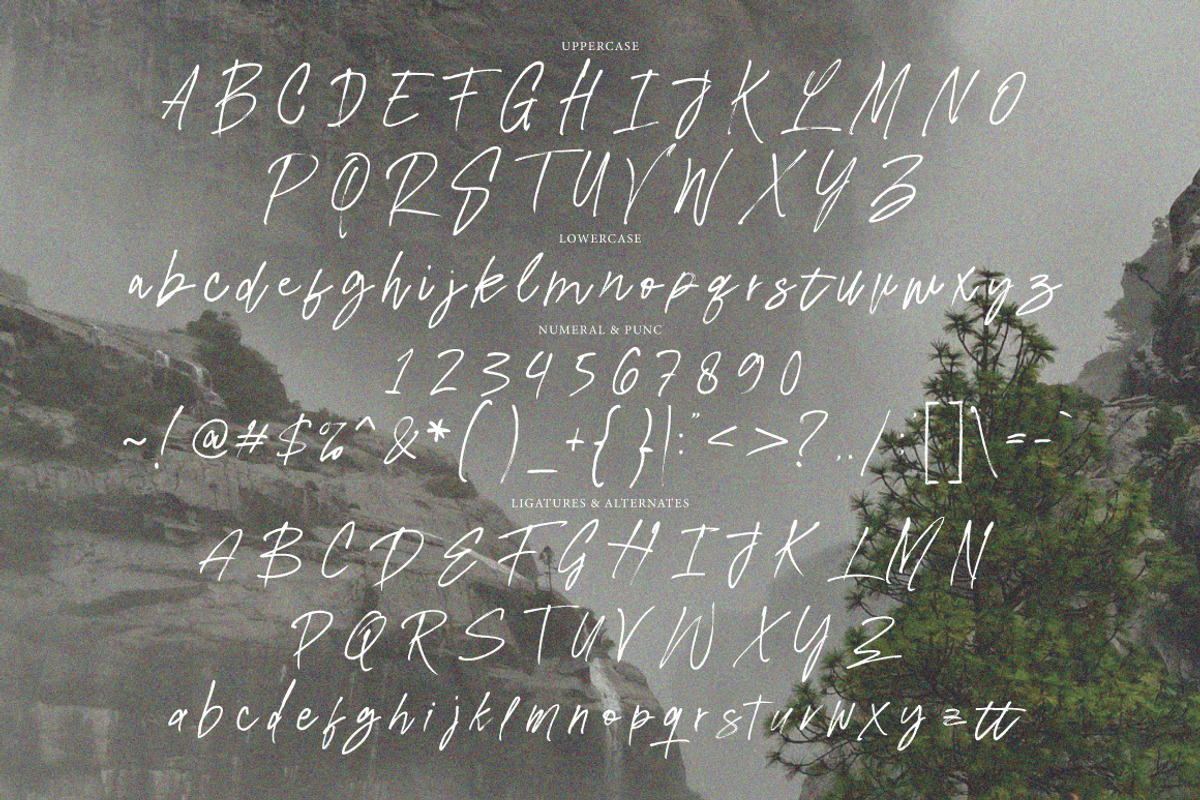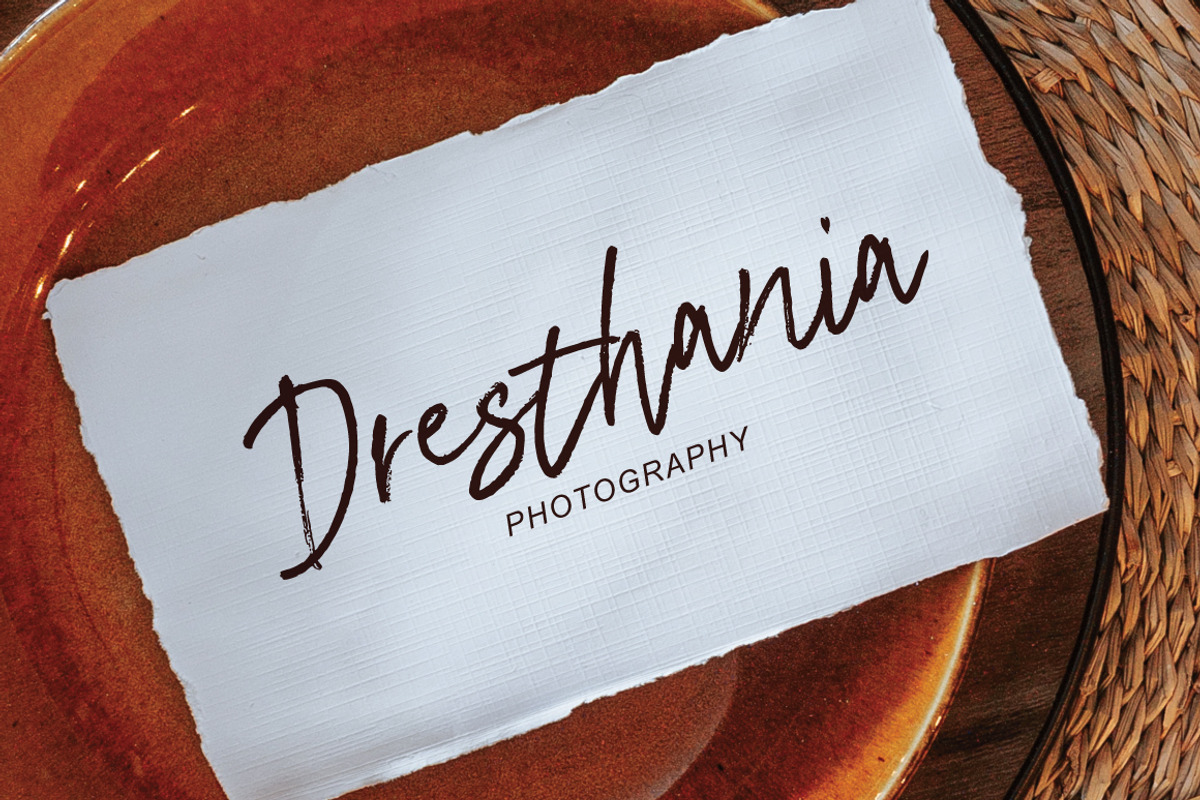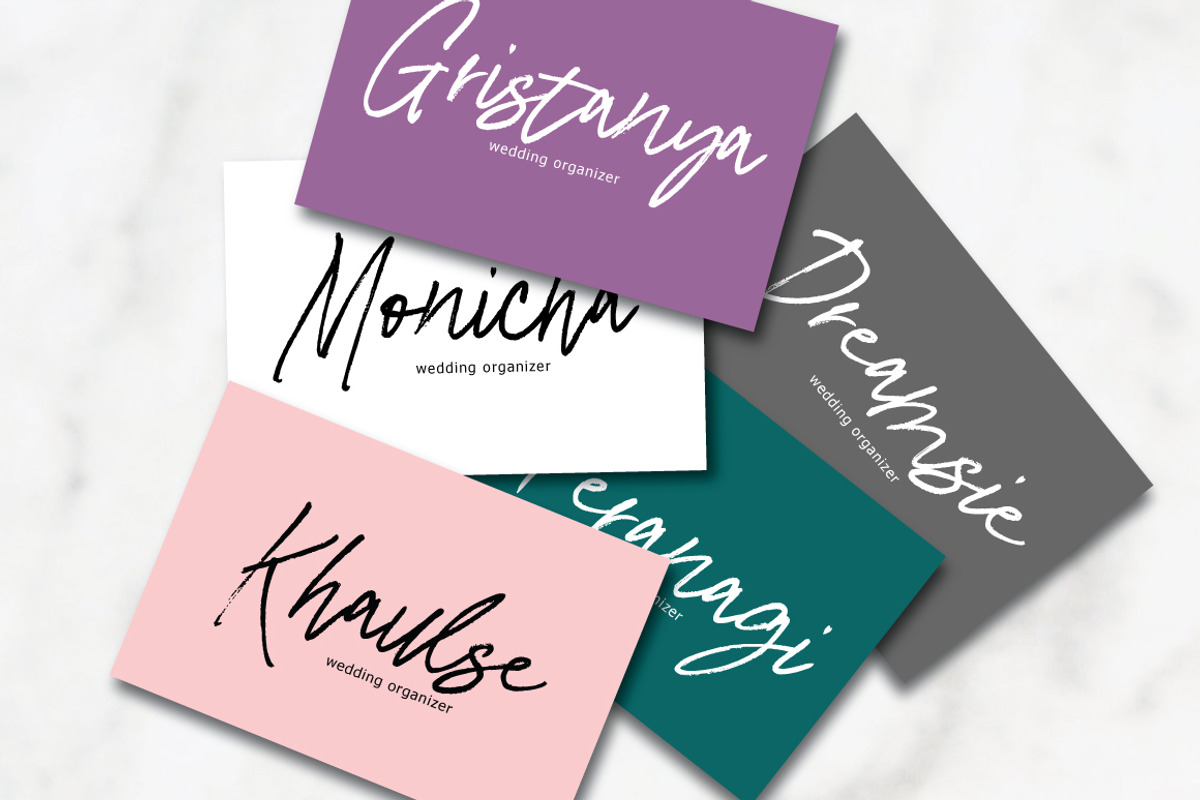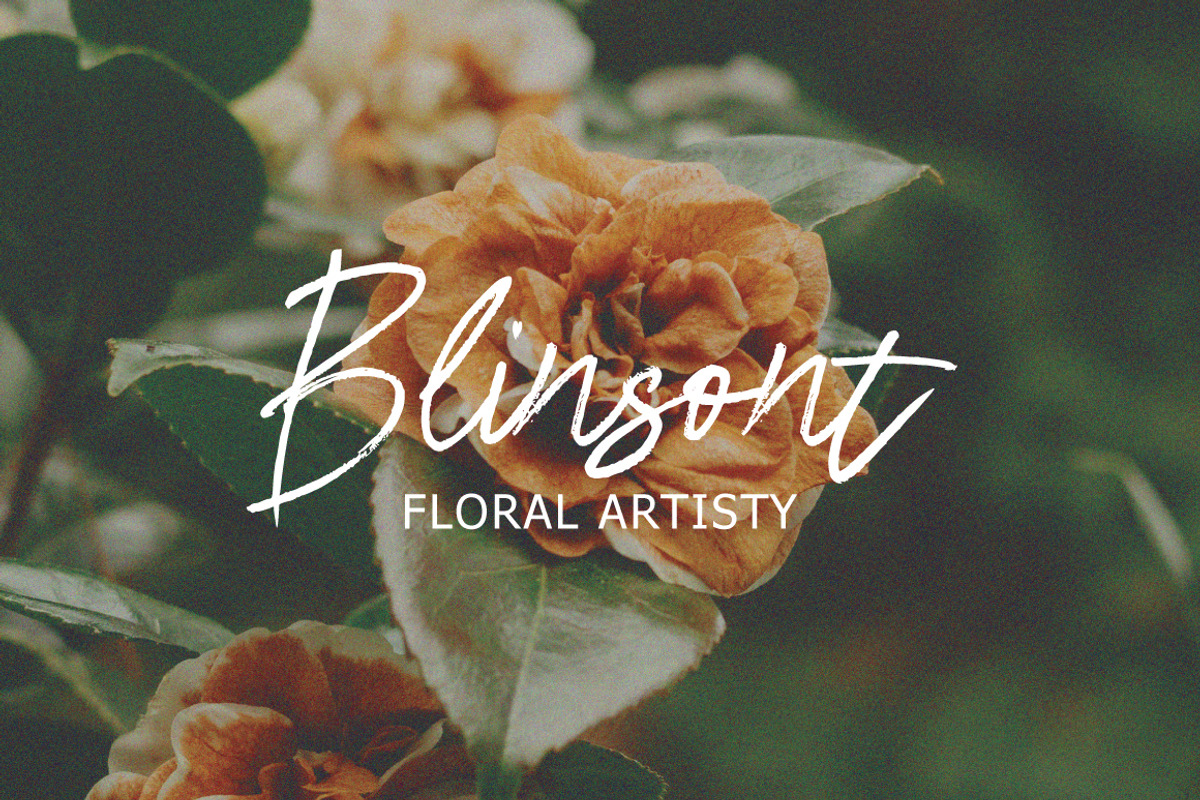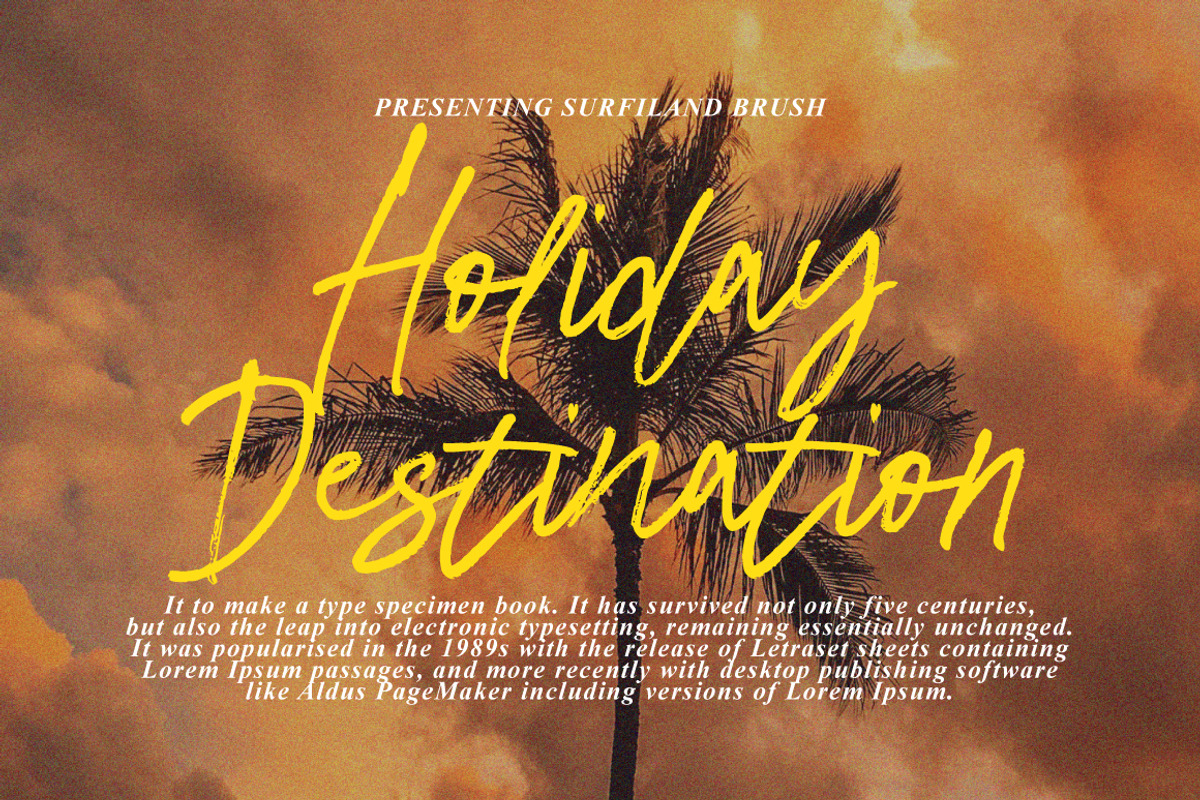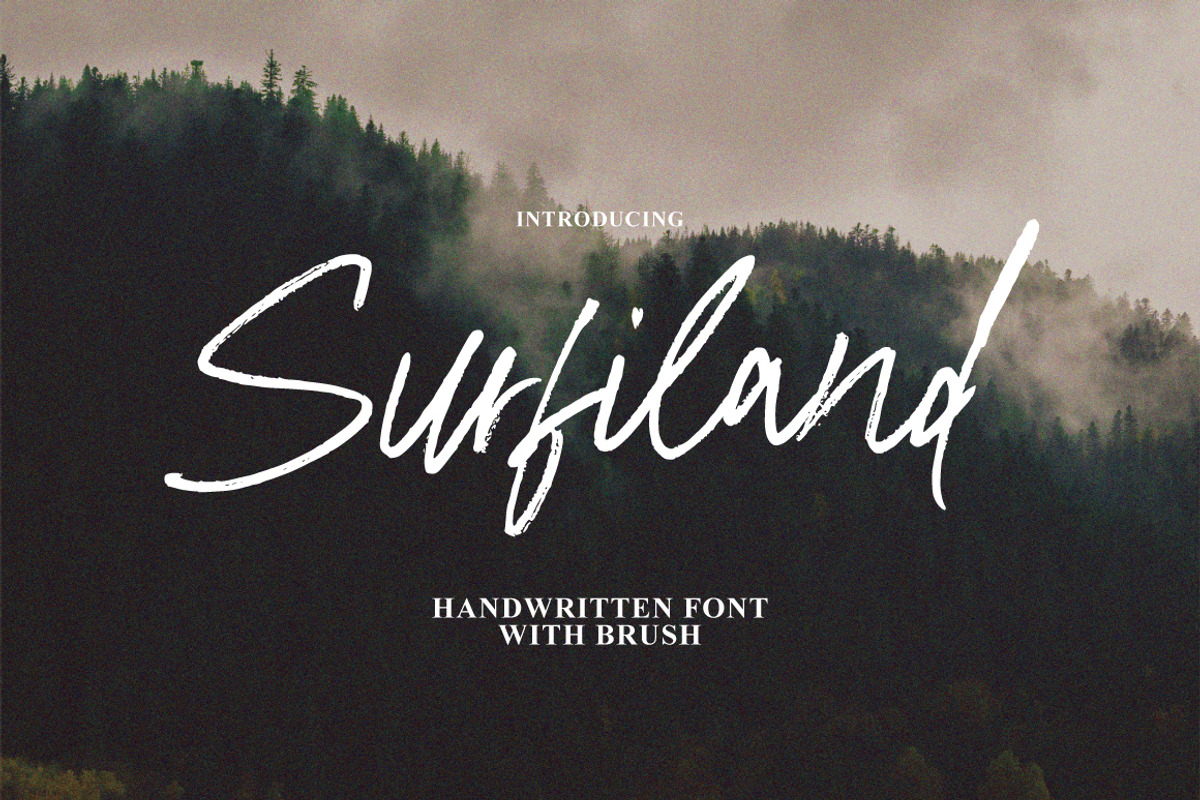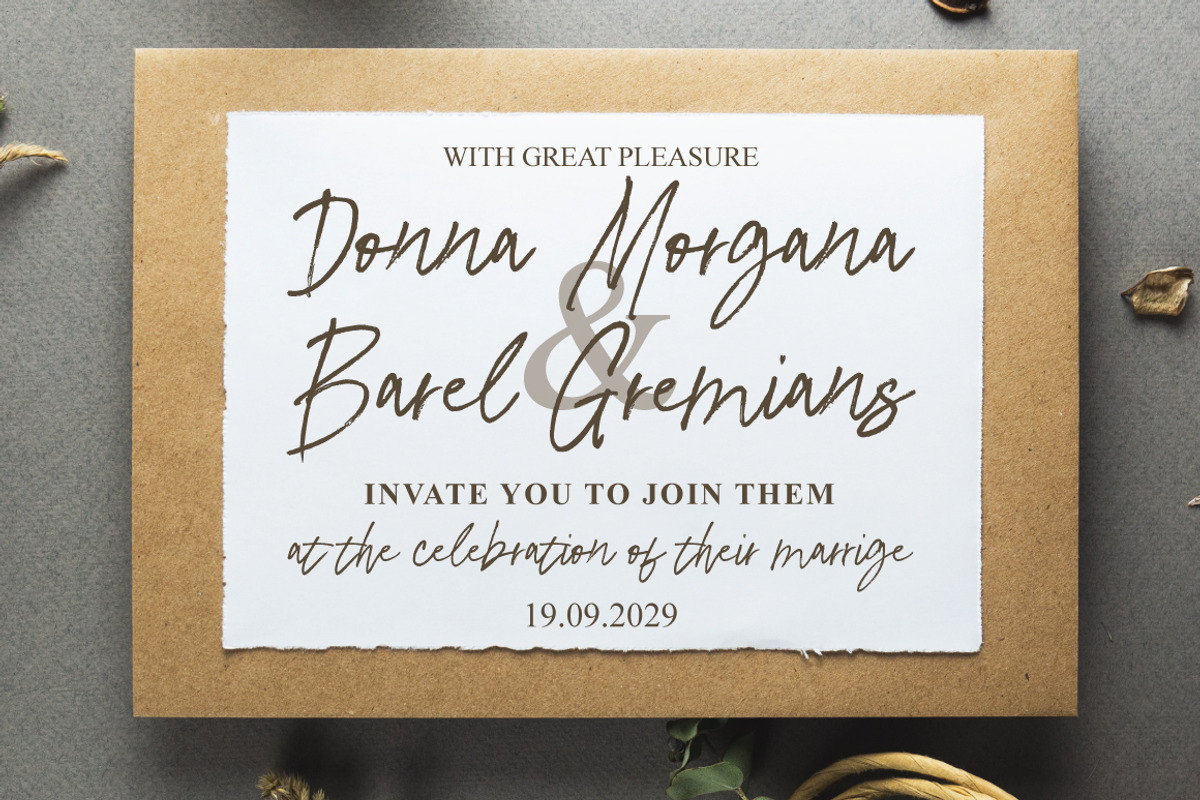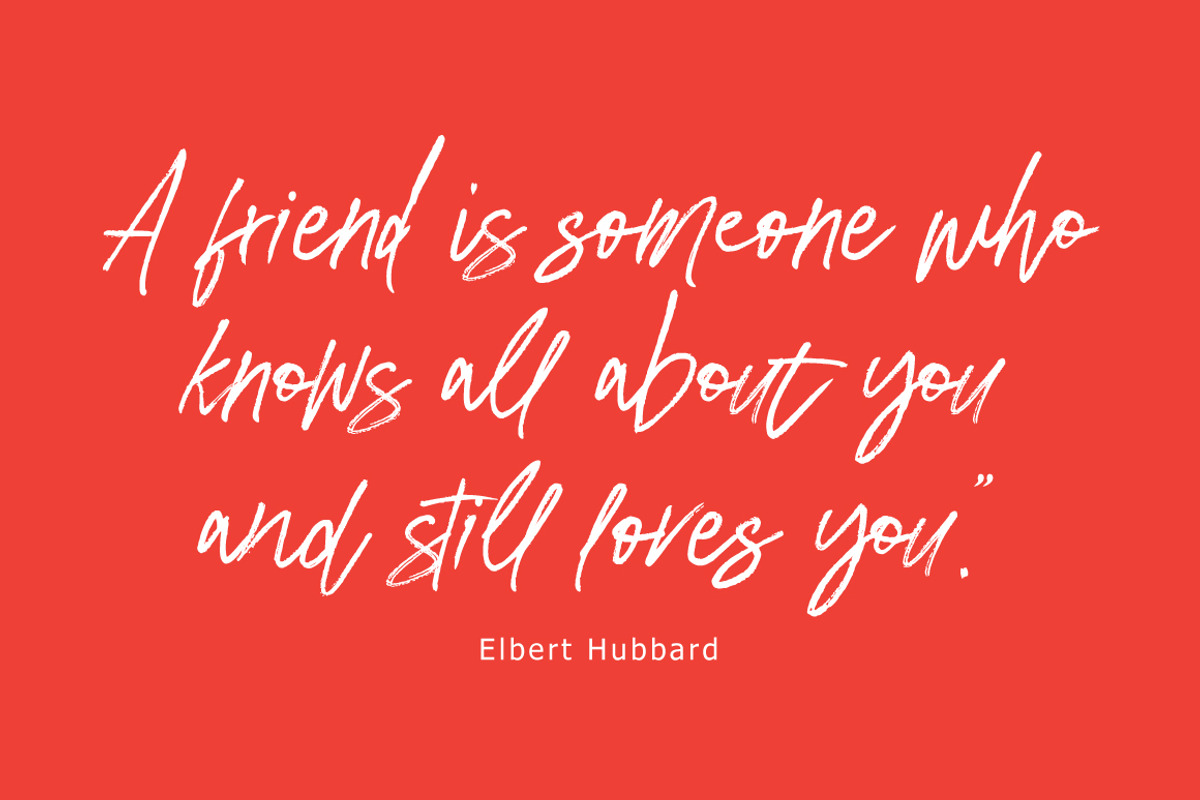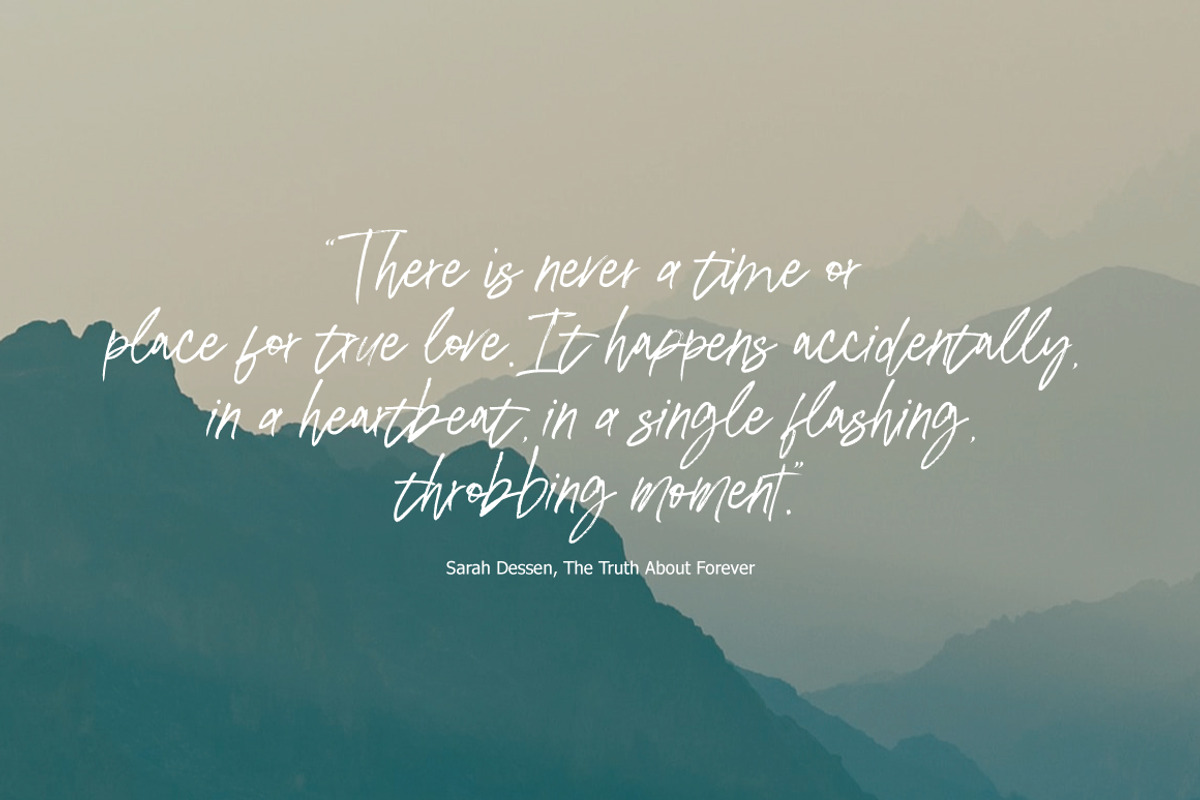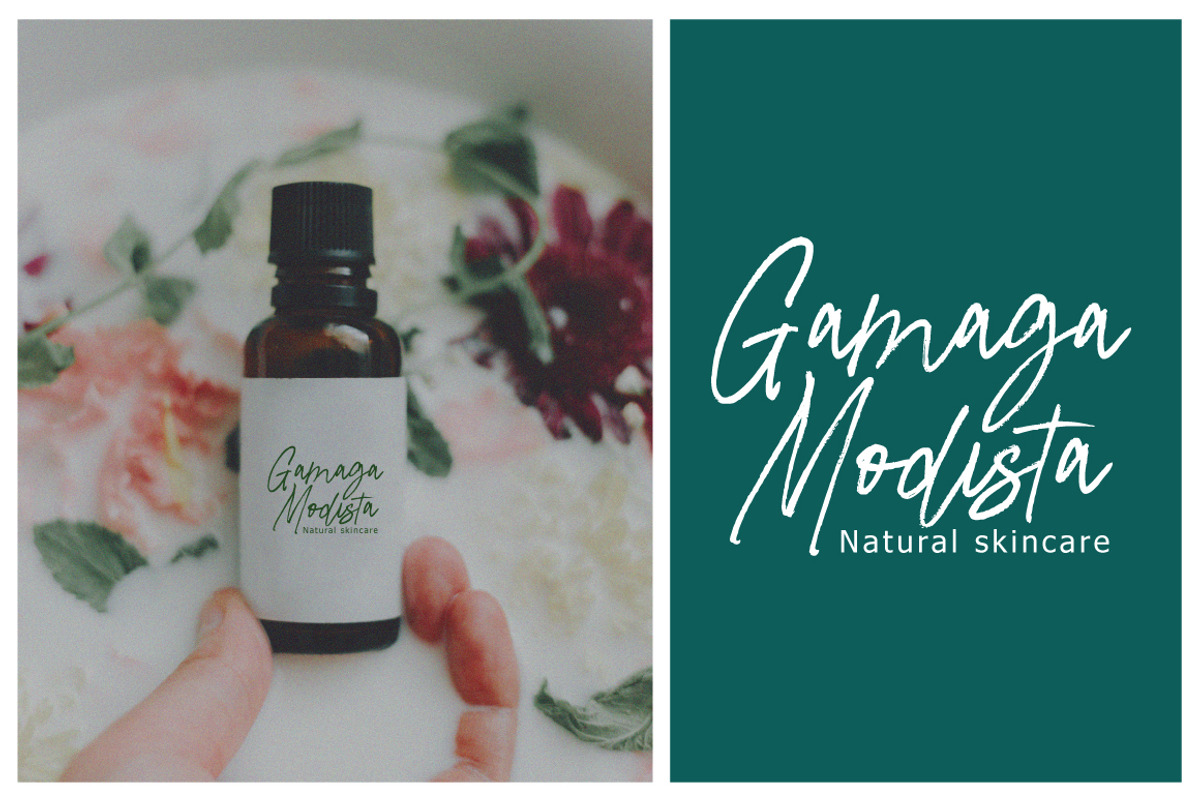
Surfiland - Handwritten Brush
Surfiland Brush Brush is a typeface with personality. You can use it as a logo, badge, insignia, packaging, headline, poster, etc The alternative characters in this font were divided into several OpenType features such as Stylistic Alternates, Stylistic Sets, and Ligature. The OpenType features can be accessed by using OpenType program such as Adobe Illustrator, Adobe Photoshop, and Adobe InDesign.